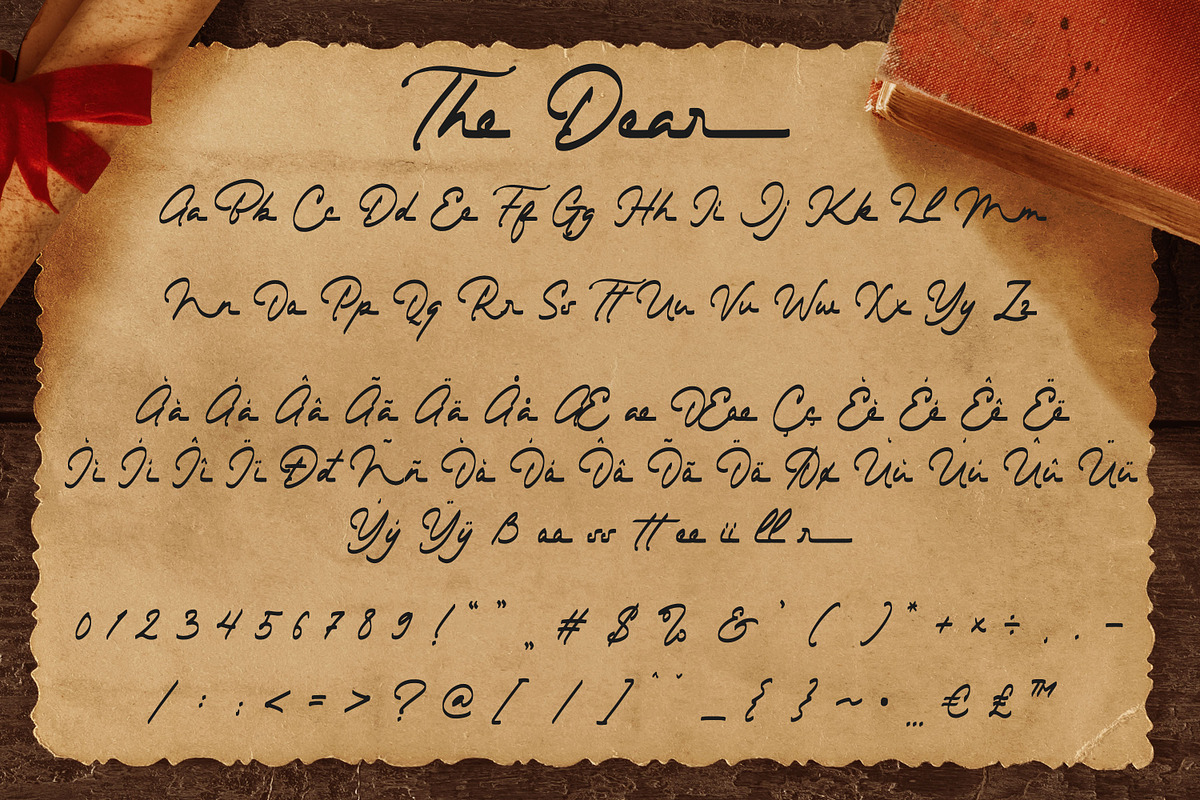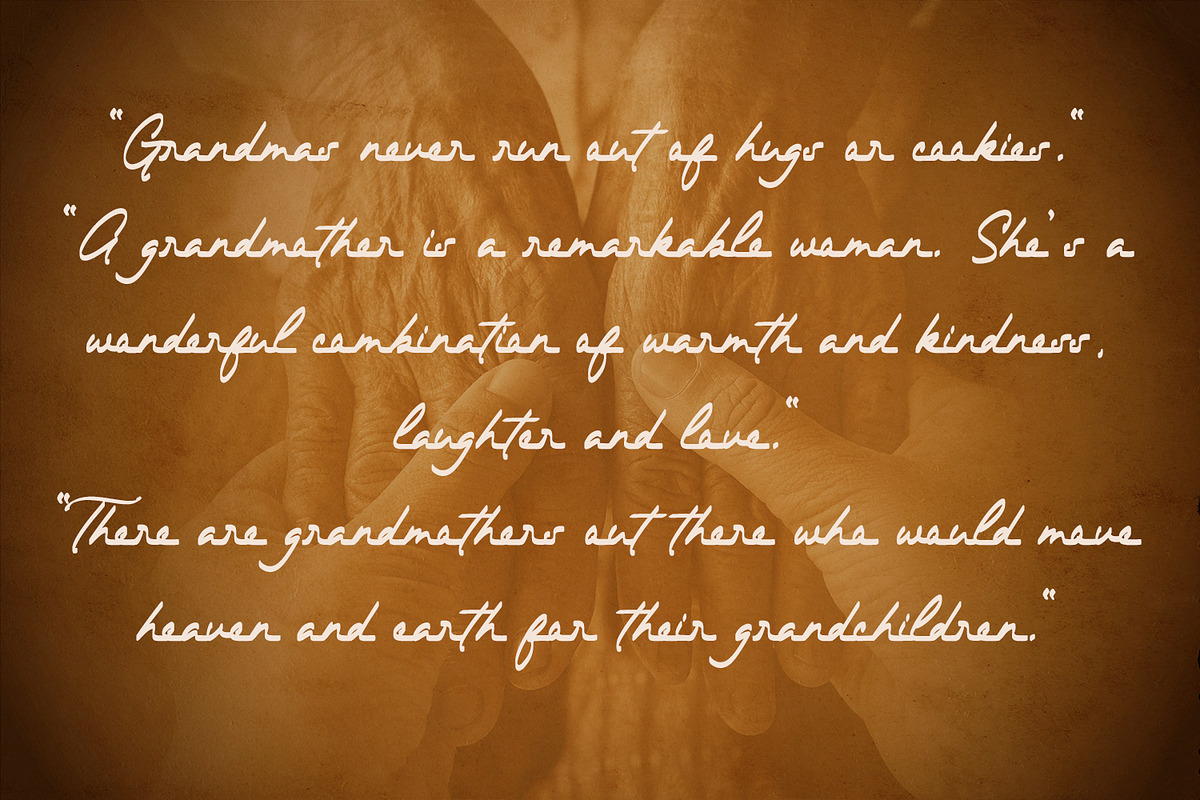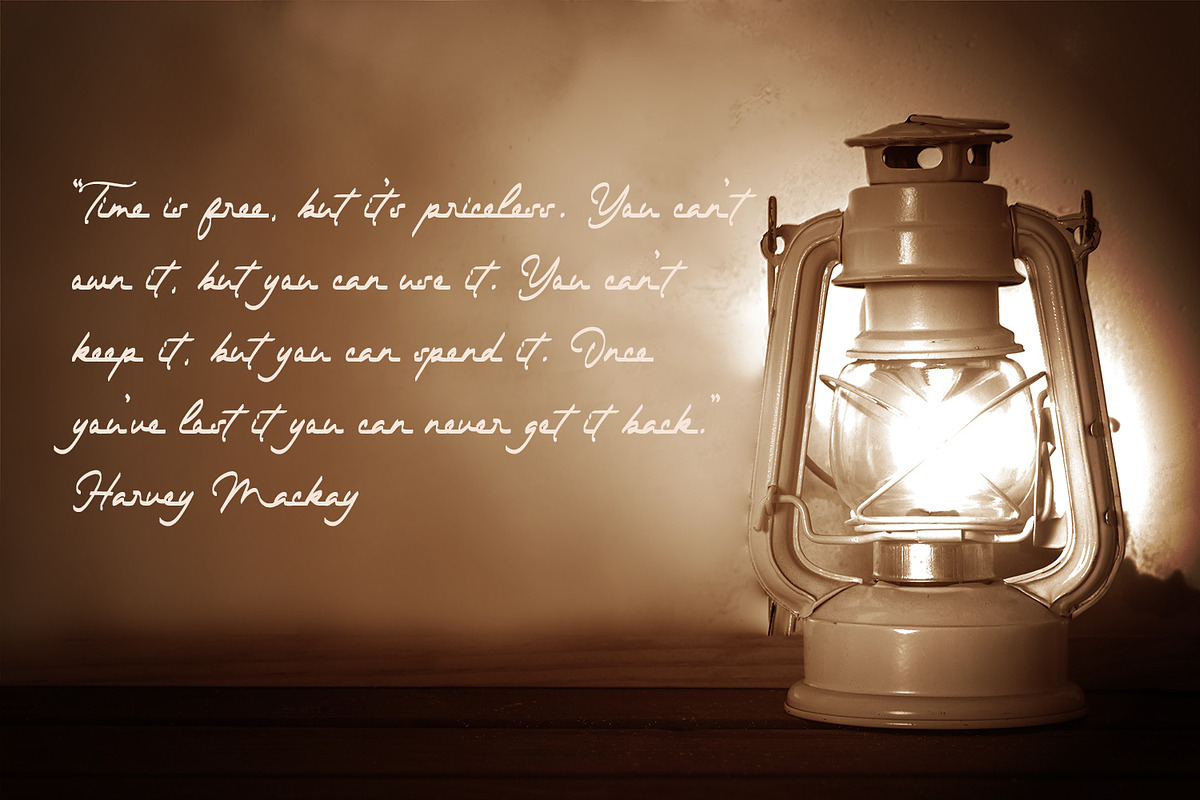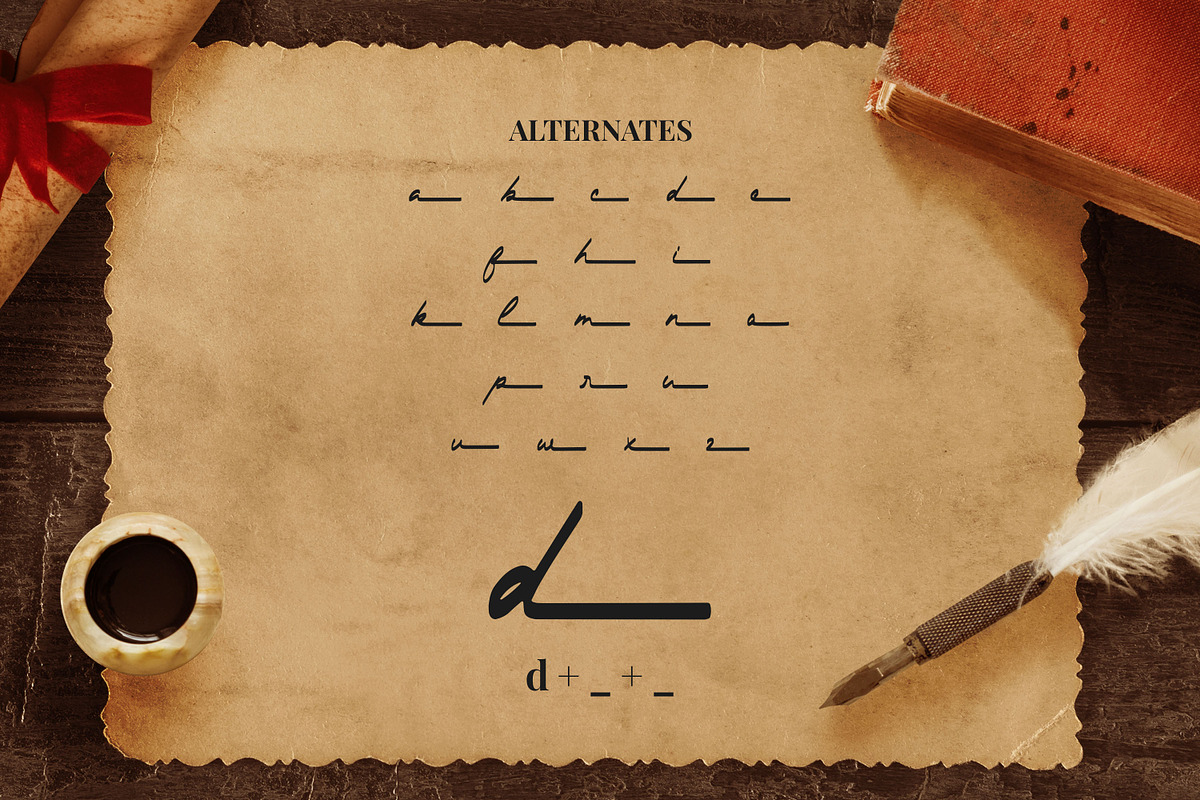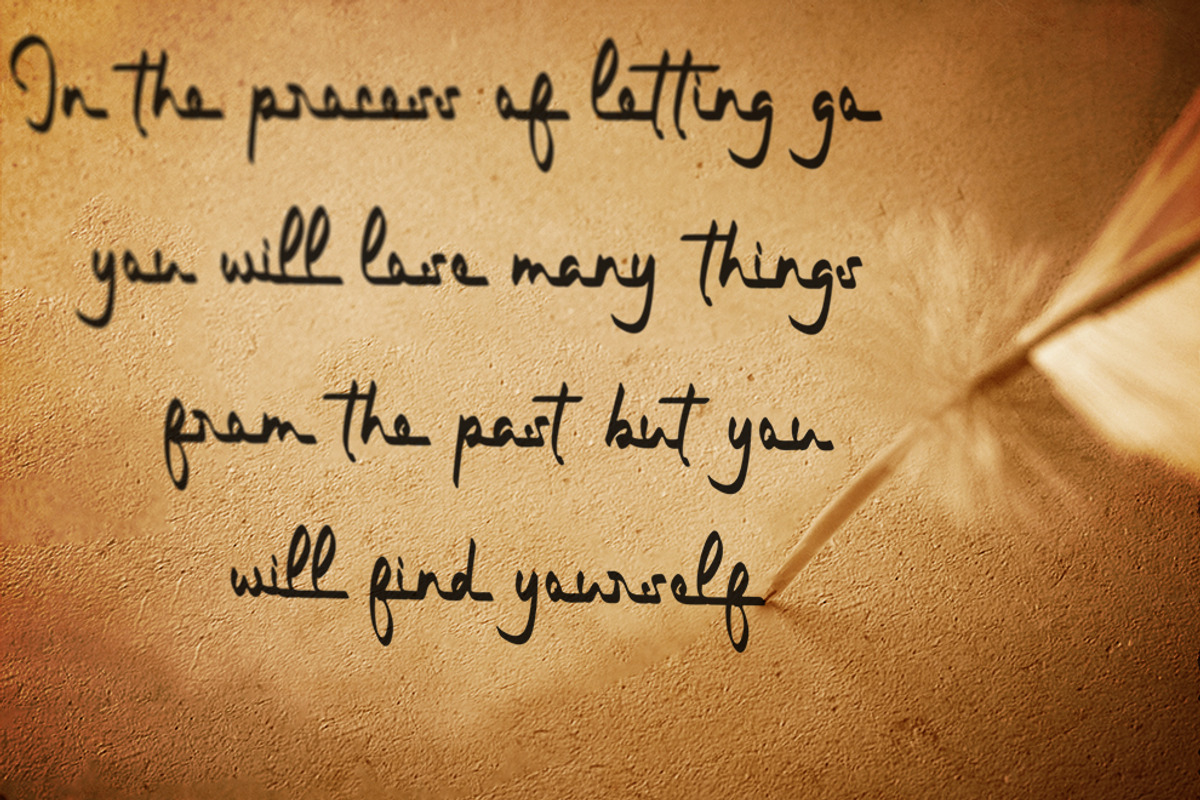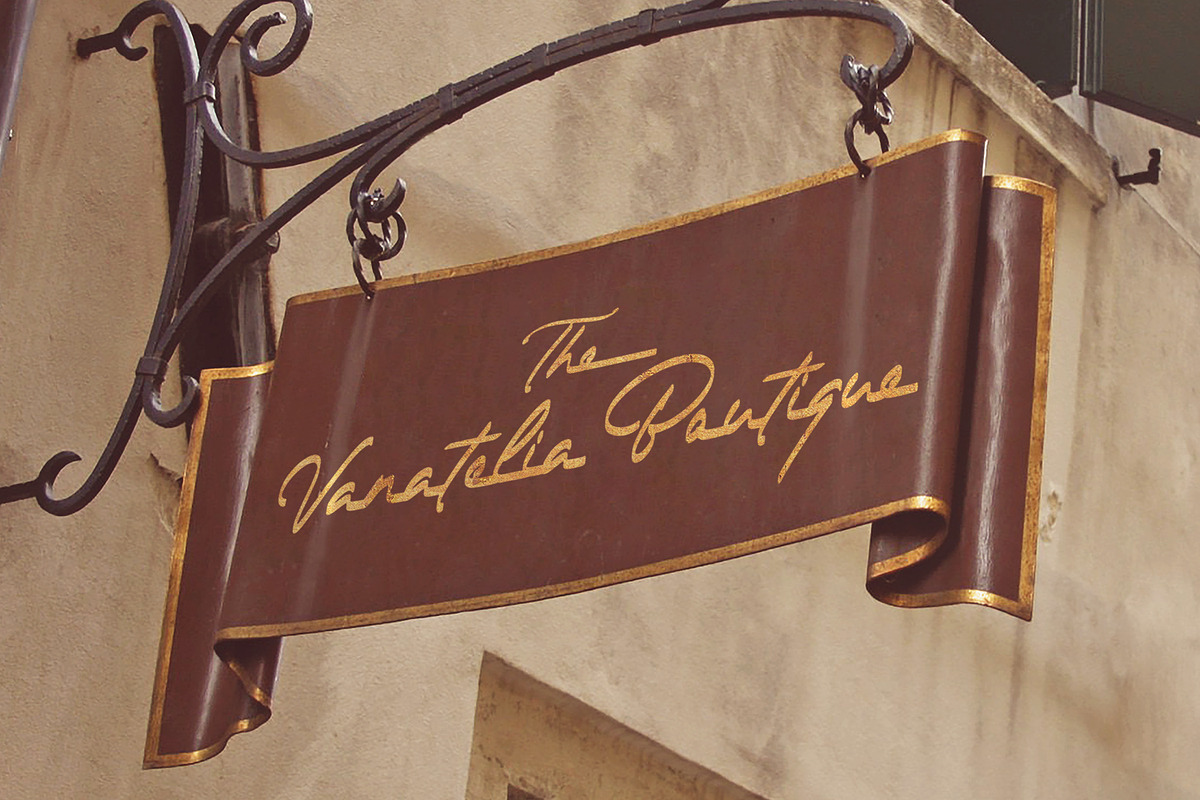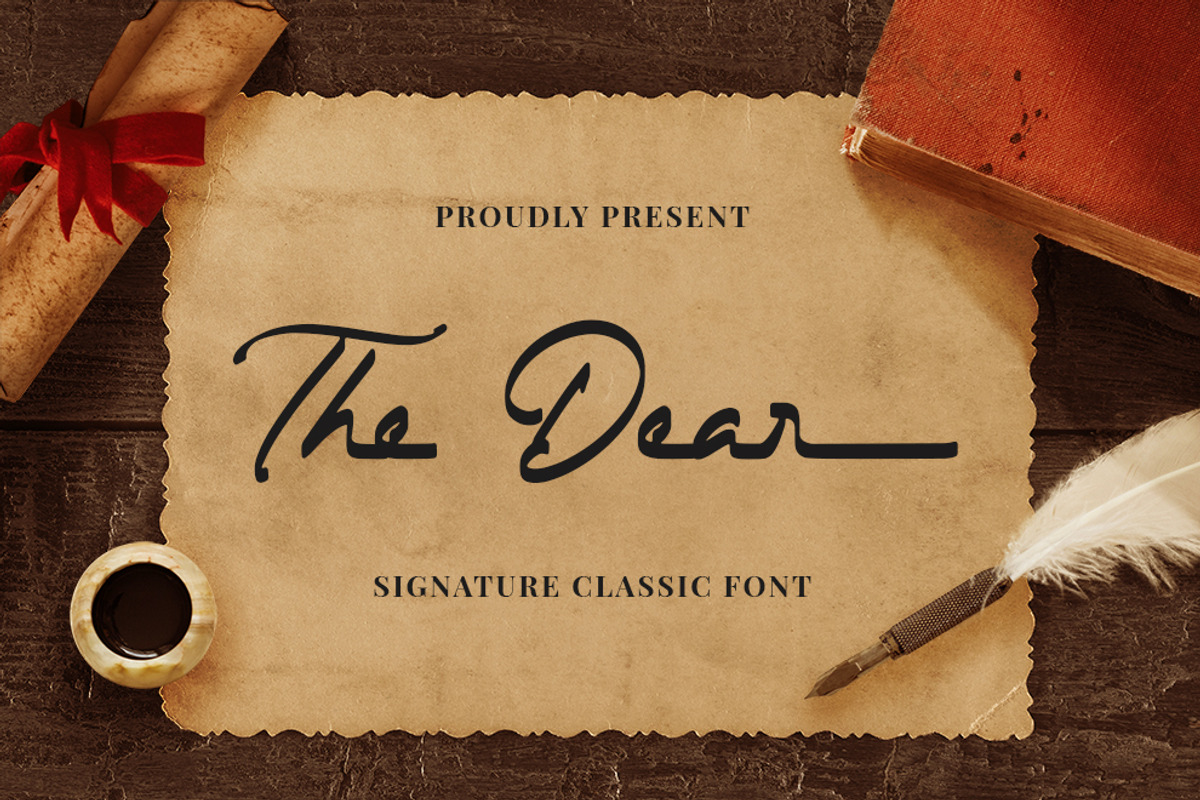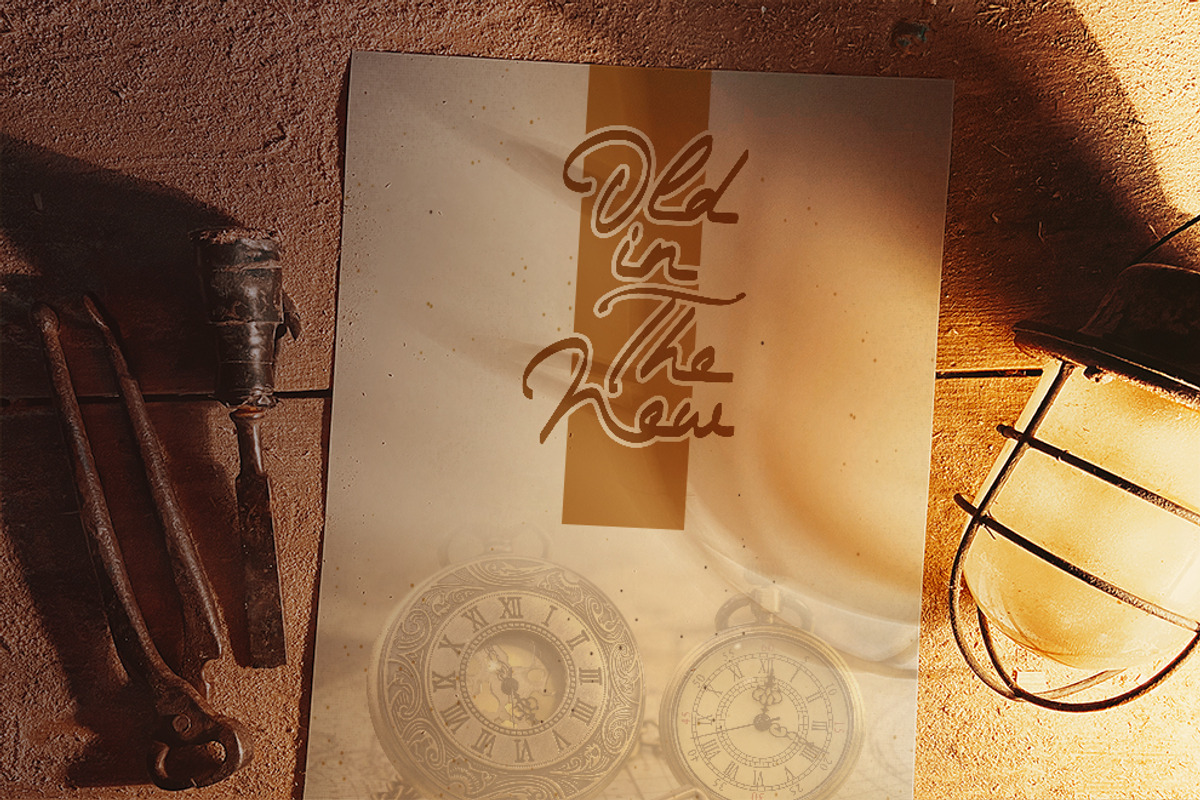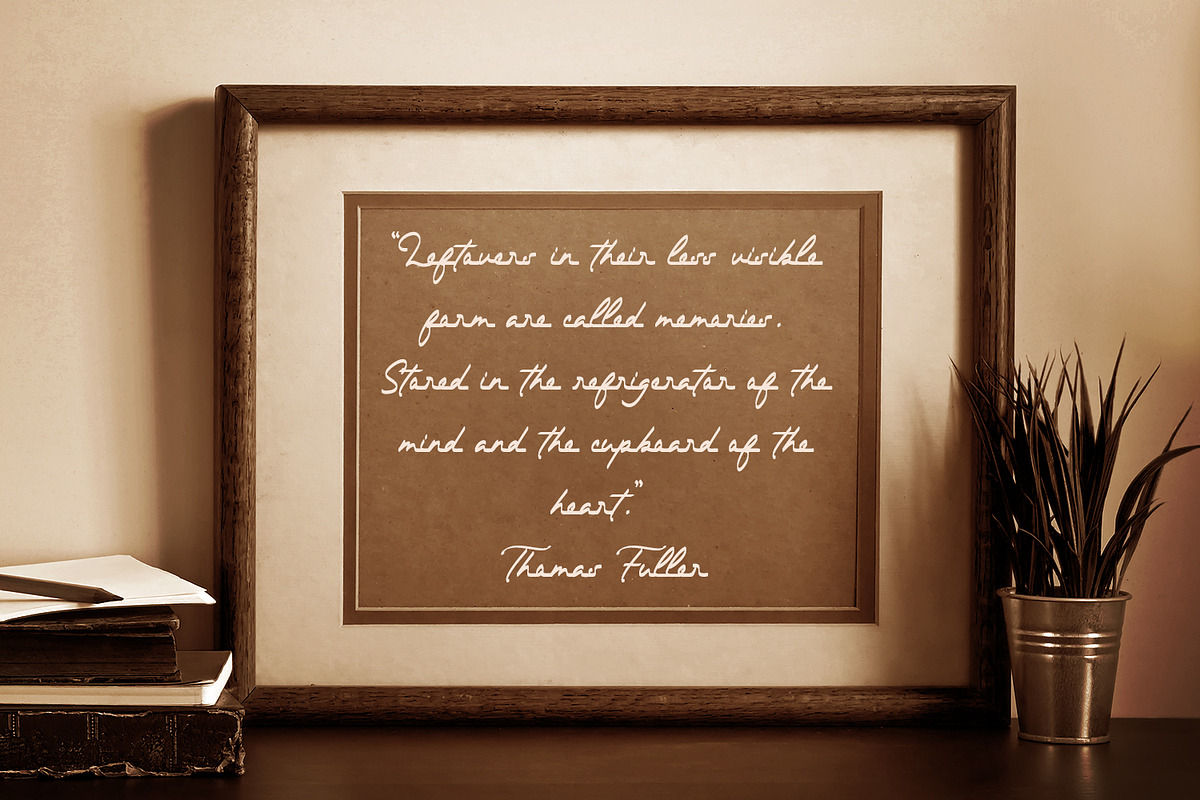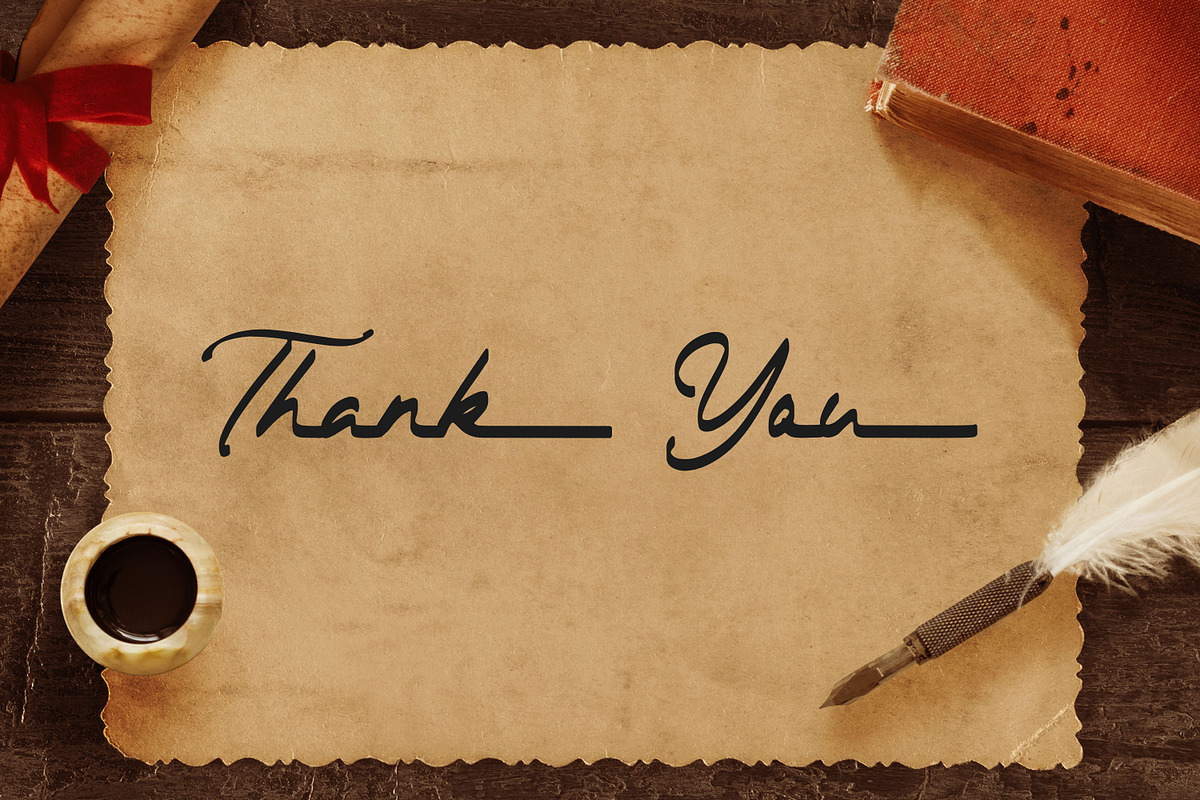
The Dear - Signature Classic Font
The Dear - Signature Classic Font, this font is great for your creative projects such as watermark on photography, and perfect for Classic logos & branding, photography, invitation, watermark, advertisements, product designs, stationery, wedding designs,label, product packaging, special events or anything that need Signature taste.